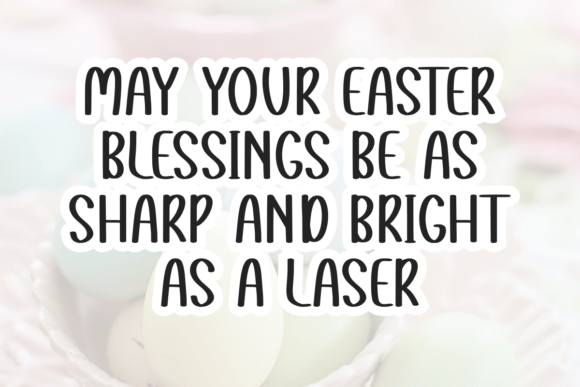
Easter Laser Font: The Perfect Choice for Your Creative Projects
Easter Laser is a modern and adorable sans serif font that has gained popularity among designers and crafty enthusiasts. Its clean and minimalist design makes it an ideal choice for various creative projects, from greeting cards and wedding invitations to gift labels, mugs, t-shirts, and more. In this article, we’ll explore the features and benefits of Easter Laser Font and how you can use it to create stunning designs.
Key Features of Easter Laser Font
- Cute and Minimalist Design: Easter Laser Font boasts a simple yet charming design that is perfect for creating visually appealing designs.
- Sans Serif: The font’s sans serif style gives it a modern and clean look, making it suitable for a wide range of applications.
- High Versatility: Easter Laser Font can be used for various design projects, including greeting cards, wedding invitations, gift labels, mugs, t-shirts, quotes, and more.
- Ease of Use: The font is easy to read and works well in both digital and print formats.
10 Creative Design Ideas Using Easter Laser Font
- Greeting Cards: Create personalized Easter greeting cards with Easter Laser Font and add a touch of warmth to your loved ones.
- Wedding Invitations: Use Easter Laser Font to design beautiful and elegant wedding invitations that set the tone for the special day.
- Gift Labels: Add a personal touch to your gifts with Easter Laser Font and make them stand out.
- Mugs and T-Shirts: Create custom mugs and t-shirts with Easter Laser Font and make them perfect for everyday use or as gifts.
- Quotes and Posters: Use Easter Laser Font to create inspiring quotes and posters that can be displayed in homes, offices, or public spaces.
- Social Media Graphics: Create engaging social media graphics with Easter Laser Font and boost your online presence.
- Party Invitations: Design festive party invitations with Easter Laser Font and get ready to celebrate.
- Branding and Packaging: Use Easter Laser Font to create a consistent brand identity and make your packaging stand out.
- Stationery and Planners: Create beautiful stationery and planners with Easter Laser Font and stay organized in style.
- Digital Art: Experiment with Easter Laser Font and create stunning digital art pieces that showcase your creativity.
Tips and Tricks for Using Easter Laser Font
- Experiment with Colors: Try pairing Easter Laser Font with different colors to create unique and eye-catching designs.
- Mix and Match Fonts: Combine Easter Laser Font with other fonts to create interesting and dynamic designs.
- Play with Sizes: Experiment with different font sizes to create visual hierarchy and add emphasis to your designs.
- Add Graphics and Illustrations: Combine Easter Laser Font with graphics and illustrations to create stunning and engaging designs.
Easter Laser Font is a versatile and charming sans serif font that is perfect for various creative projects. Its clean and minimalist design makes it easy to read and use in a wide range of applications. With its high versatility and ease of use, Easter Laser Font is an excellent choice for designers, crafty enthusiasts, and anyone looking to create stunning designs.